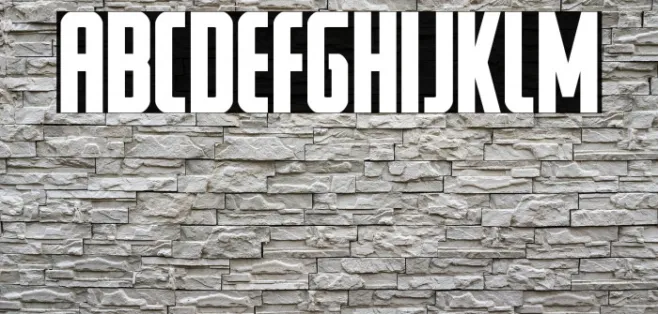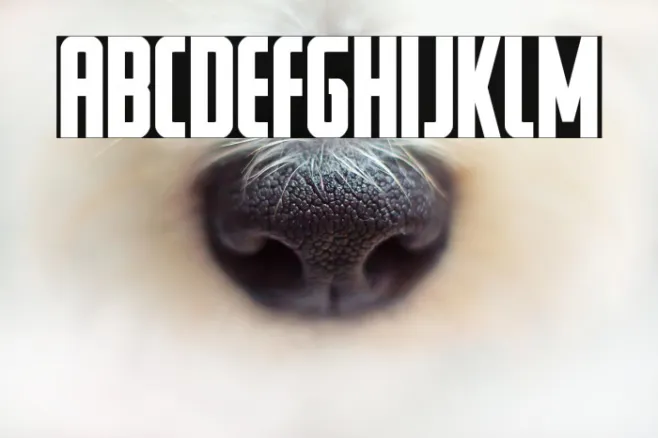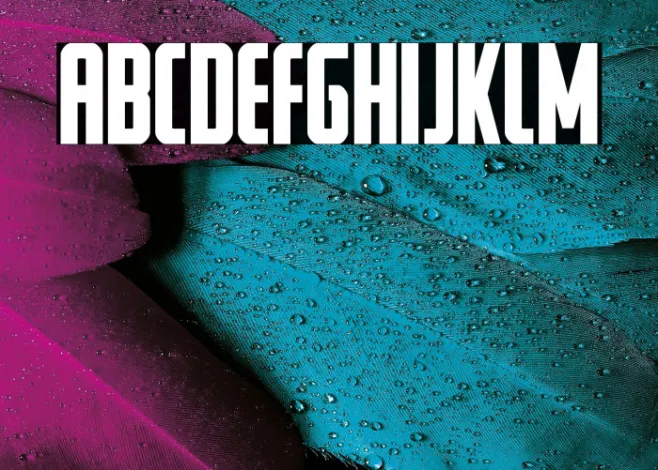
Watchtower Bold Font
Watchtower Bold Description
This font features a bold and impactful design with strong geometric shapes and a modern aesthetic. The uppercase letters are tall and commanding, with uniform stroke widths that convey a sense of strength and stability. The lowercase letters maintain the same boldness, ensuring consistency across different text sizes. Numbers are equally robust, making them ideal for attention-grabbing displays. The special characters are designed to complement the overall bold style, adding versatility to the font's use. Its clean lines and lack of serifs give it a contemporary feel, suitable for modern design projects.
| Proposed Projects | Ideal for headlines, posters, branding, and any project requiring a strong visual impact. |